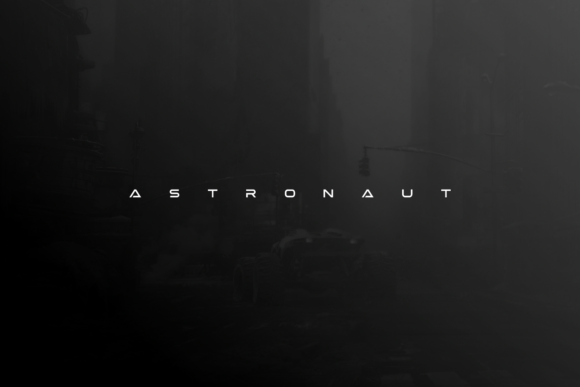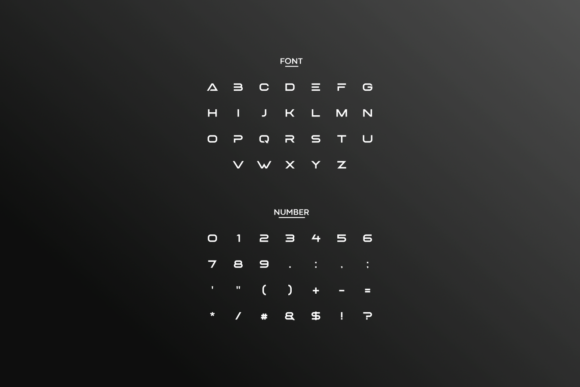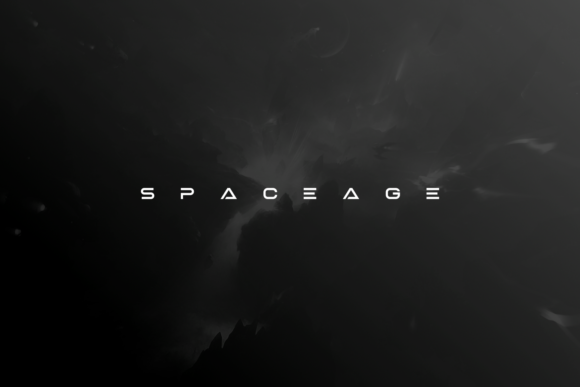
Introduction to Arfumes Font Font
Fonts play a crucial role in design, and the Arfumes Font font is a typeface that brings both character and versatility to any project. Whether you’re working on a branding project, a website, or a print design, the Arfumes Font font offers a unique style that can elevate your work.
Arfumes is a modern, elegant, and futuristic display font.
This font would be ideal for web designs, titles, business cards, or just about anything else that requires a unique touch The futuristic feel is displayed more prominently so that it will look stunning on electronic and robotic products, electrical products, and many items related to the future.
Key Features of Arfumes Font Font
Why Choose Arfumes Font Font?
The Arfumes Font font is more than just a typeface – it’s a design tool that helps you communicate your message with style and clarity. Its unique character set and versatile design make it suitable for a wide range of applications, from elegant invitations to bold headlines.
With its carefully crafted letterforms and balanced proportions, the Arfumes Font font ensures readability and visual appeal across all mediums.
What makes Arfumes Font font special?
The Arfumes Font font stands out with its unique design, exceptional readability, and versatility across various design applications.